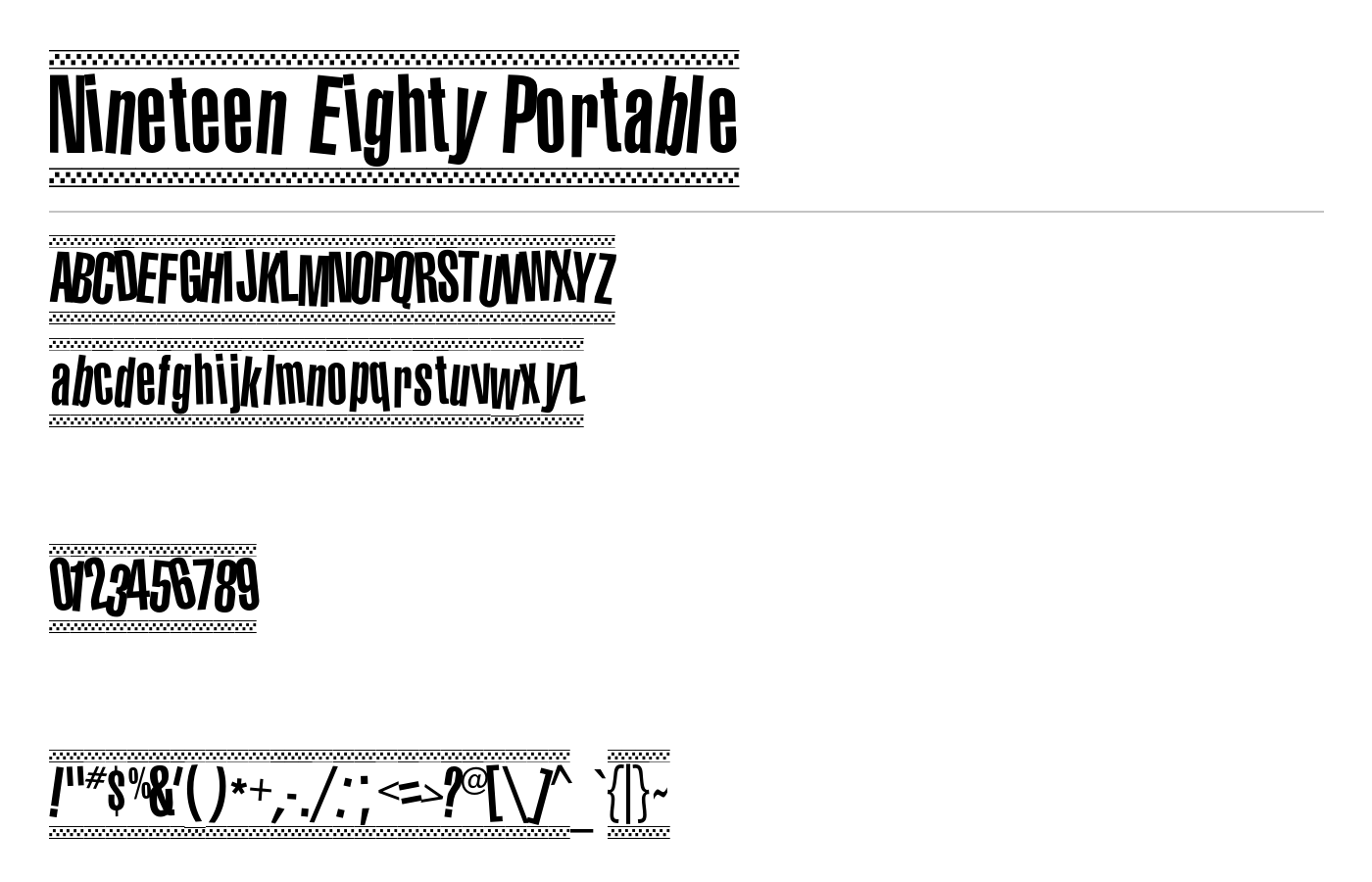
1980 Portable is a bold, condensed sans serif font characterized by its playful, slightly irregular letterforms that lean forward, giving it a dynamic and energetic feel. With its tall x-height and tight spacing, it works wonderfully for eye-catching headlines, logos, and posters that need a touch of retro-modern flair. This typeface is ideal for brands or designs that want to convey fun, movement, and a distinctive personality.
1980 Portable Font
About 1980 Portable Font
| Font family | 1980 Portable Font |
| Designer | Raymond Larabie |